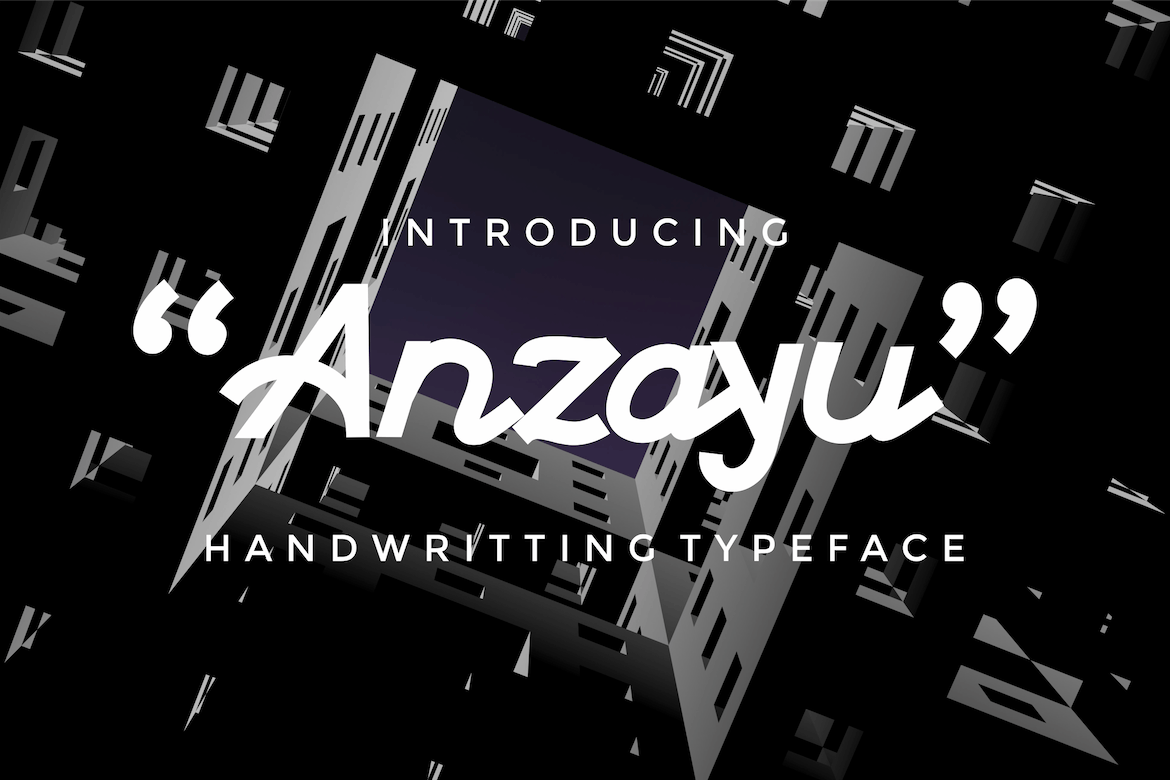
Anzayu Handwritting Typeface
Anzayu is a Handwritting brush font that we designed with original touch for your needs. This cool font is complete with Uppercase, Lowercase, Numeric & symbols. This very strong and sharp font is perfect for titles, typography, posters, magazines, brochures, packaging, Websites and much more for your design needs, making your designs more cool.